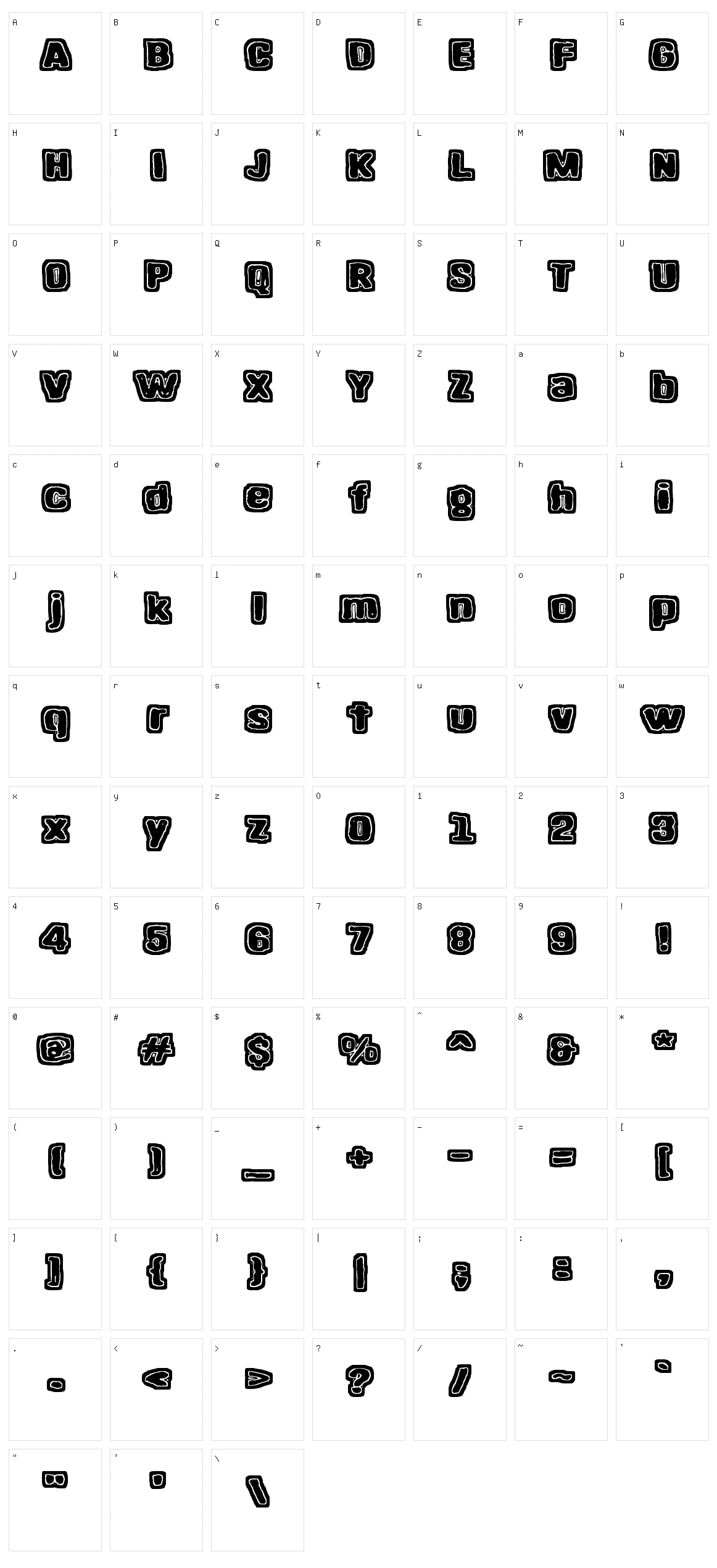
The free font Hangen henki is carefully designed by junkohanhero, showcasing a thoughtful balance of creativity and usability and falls under the Eroded font style. When you download the ZIP file, it contains only 48.02 KB of font files, making it lightweight and quick to download. Please review the license details below to understand permitted usage and distribution rights. If license information is not available, we recommend using this font for personal projects only or contacting the author directly for commercial usage permissions.